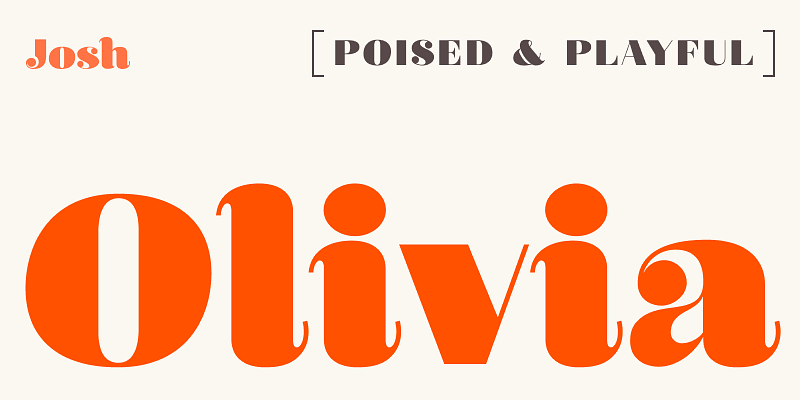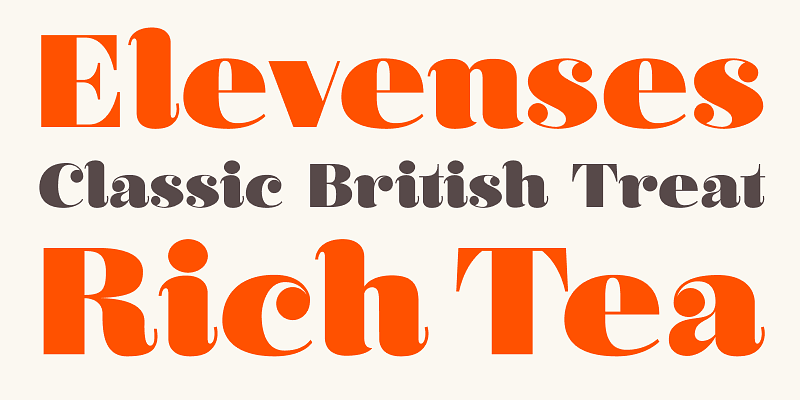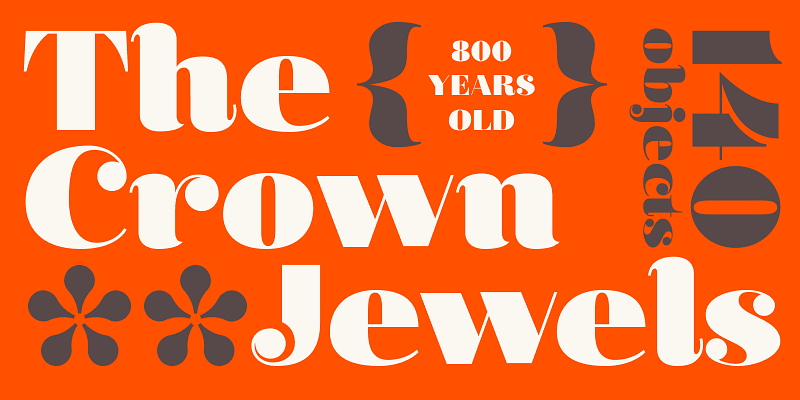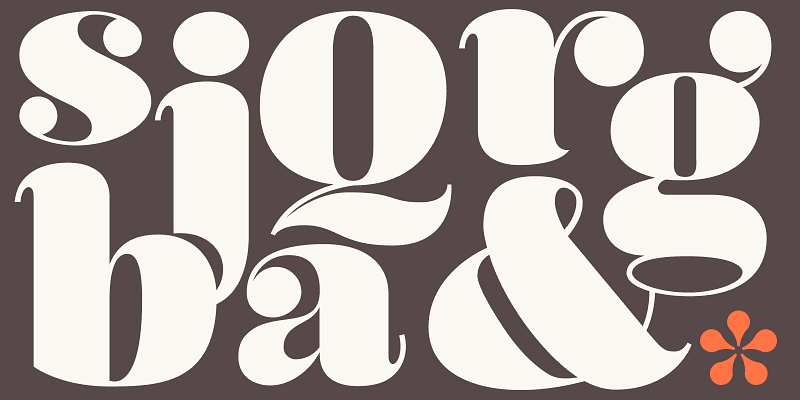
Olivia is a curvaceous display typeface, almost like a casual Bodoni. Create bold, beautiful graphics and gorgeous headlines with a vintage feel. Olivia’s contrasting strokes, wide curves, large x-height, and short tails give your designs personality and a touch of elegance. This unique versatility makes Olivia perfect for logos, wedding invitations, quotes, branding, book covers, and editorials. Olivia’s aesthetic elevates your projects with repeatedly eye-catching whimsy.